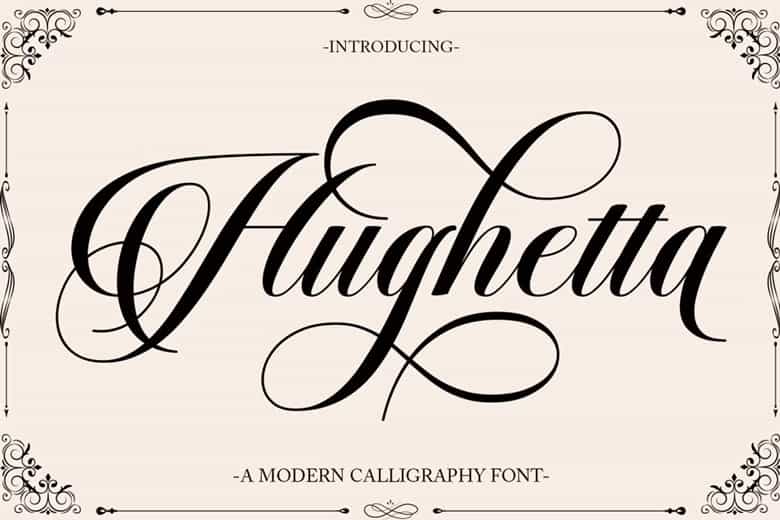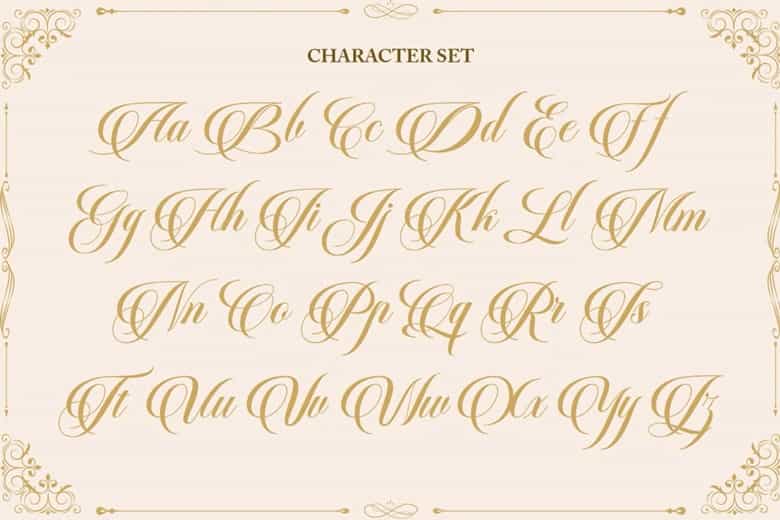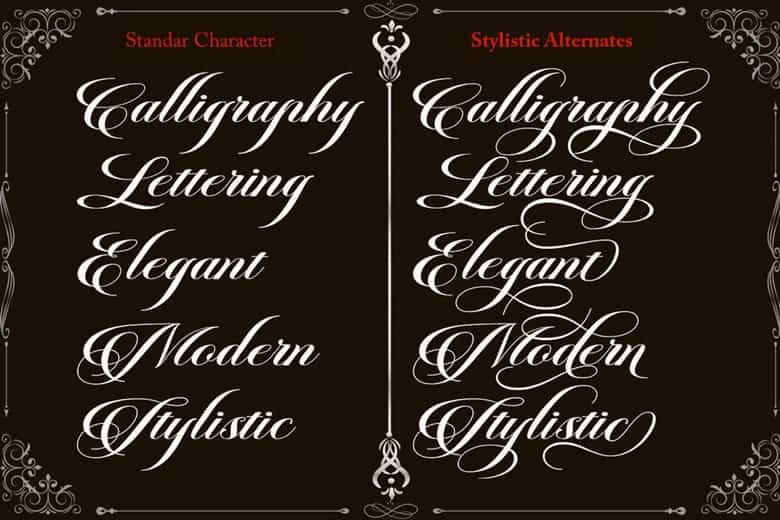
To write things other than words, Hughetta font is recommended. It is a highly meticulous typeface meant to portray a sophisticated style in the typeface. Thus, one may say, the nature of the change is very ornamental, a sort of classic decorative copper text. Hughetta offers alternative versions of most fonts, binders and most of the calligraphy tips,